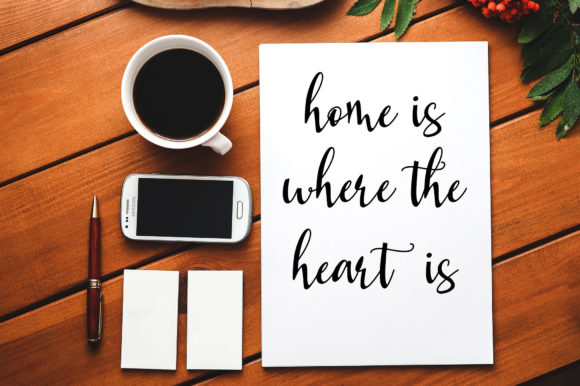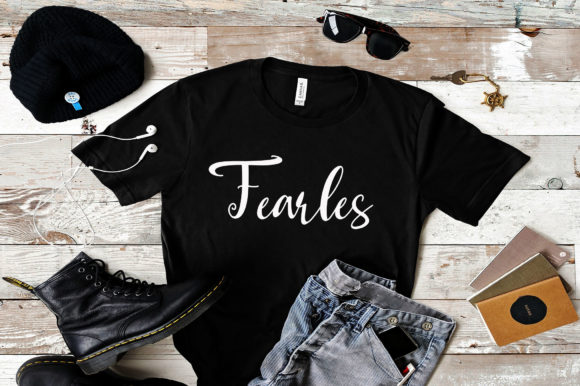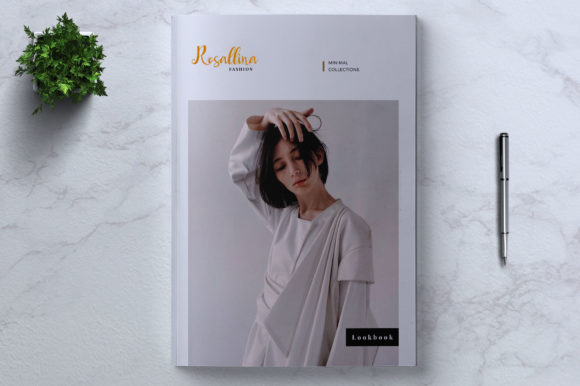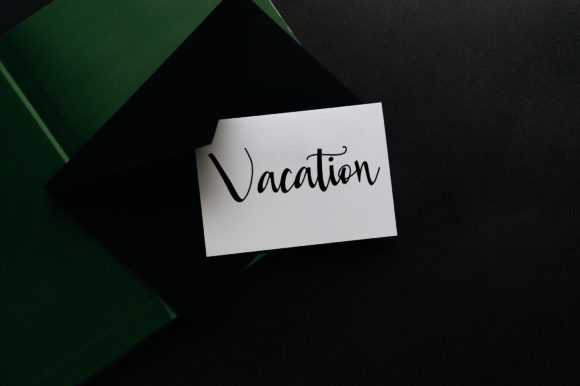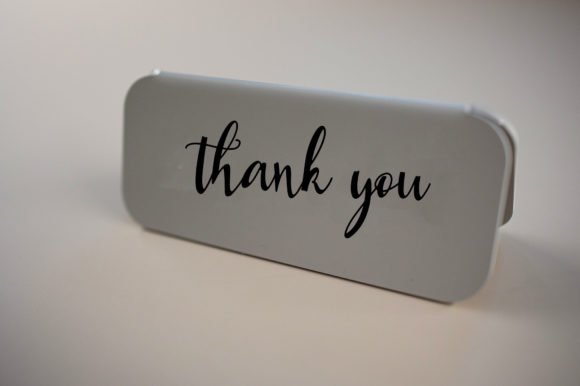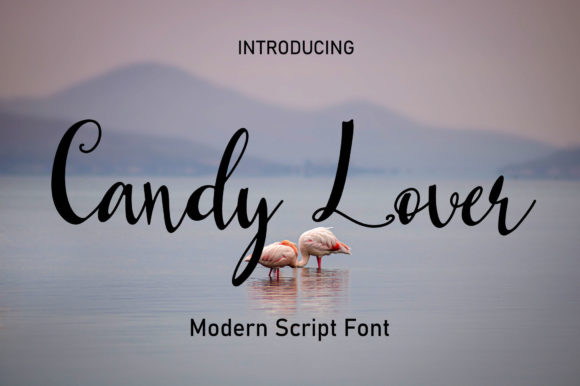
Candy Lover Font: The Sweetest Addition to Your Typography Collection
Are you a designer or crafter looking for a font that exudes charm and elegance? Look no further than the Candy Lover Font! This beautiful, handwritten font is perfect for projects that require lovely, romantic typography. In this article, we’ll dive into the details of the Candy Lover Font, exploring its features, uses, and benefits.
What is Candy Lover Font?
Candy Lover Font is a flowing and delicate handwritten font that embodies charm and elegance in every character. Its whimsical and romantic feel makes it perfect for a variety of design projects, from wedding invitations and stationery to branding and packaging. The font’s intricate details and smooth lines create a sense of sophistication and luxury, making it ideal for designers and crafters who want to add a touch of elegance to their work.
Features of Candy Lover Font
The Candy Lover Font boasts several features that make it a standout in the world of typography. Some of its key features include:
• Flowing and delicate design: The font’s handwritten design is characterized by flowing lines and delicate strokes, creating a sense of movement and elegance.
• Charming and elegant characters: Each character in the Candy Lover Font is carefully crafted to exude charm and elegance, making it perfect for projects that require a touch of sophistication.
• Romantic feel: The font’s romantic feel makes it ideal for projects such as wedding invitations, love letters, and other designs that require a sense of warmth and intimacy.
• Versatile: The Candy Lover Font is versatile and can be used for a variety of design projects, from digital designs to print materials.
Uses of Candy Lover Font
The Candy Lover Font is perfect for a variety of design projects, including:
• Wedding invitations and stationery: The font’s romantic feel and elegant design make it perfect for wedding invitations, save-the-date cards, and other wedding-related stationery.
• Branding and packaging: The Candy Lover Font can be used to create beautiful and elegant branding and packaging designs for luxury products, such as cosmetics, jewelry, and high-end food items.
• Digital designs: The font can be used for digital designs, such as social media graphics, blog headers, and website designs.
• Crafting projects: The Candy Lover Font is also perfect for crafters who want to add a touch of elegance to their projects, such as handmade cards, scrapbooking, and other paper crafts.
Benefits of Using Candy Lover Font
Using the Candy Lover Font offers several benefits, including:
• Elegance and sophistication: The font adds a touch of elegance and sophistication to any design project, making it perfect for luxury brands and high-end products.
• Romantic feel: The font’s romantic feel makes it perfect for projects that require a sense of warmth and intimacy, such as wedding invitations and love letters.
• Versatility: The Candy Lover Font is versatile and can be used for a variety of design projects, from digital designs to print materials.
• Easy to read: The font is easy to read, making it perfect for designs that require a clear and legible typography.
Tips for Using Candy Lover Font
Here are some tips for using the Candy Lover Font:
• Use it sparingly: Use the font sparingly to add a touch of elegance and sophistication to your design.
• Pair it with other fonts: Pair the Candy Lover Font with other fonts to create a unique and interesting typography combination.
• Experiment with colors: Experiment with different colors to find the perfect combination that complements the font.
• Pay attention to spacing: Pay attention to the spacing between letters and words to ensure that the text is easy to read.
Font Name Candy Lover Font
Author Neo Studio
In conclusion, the Candy Lover Font is a beautiful and elegant handwritten font that is perfect for designers and crafters who want to add a touch of charm and sophistication to their work. Its flowing and delicate design, charming and elegant characters, and romantic feel make it ideal for a variety of design projects, from wedding invitations and stationery to branding and packaging. With its versatility, ease of use, and beautiful design, the Candy Lover Font is a great addition to any typography collection.